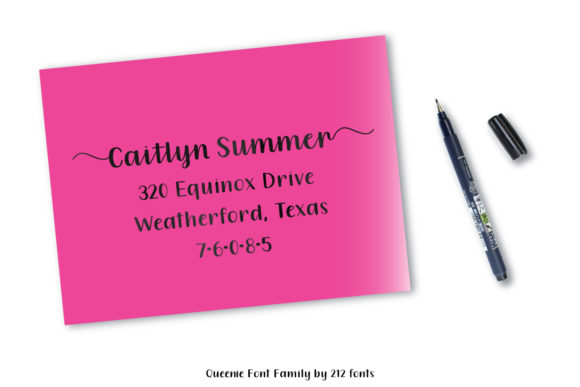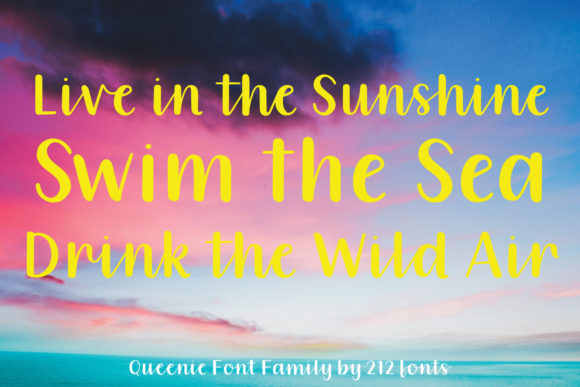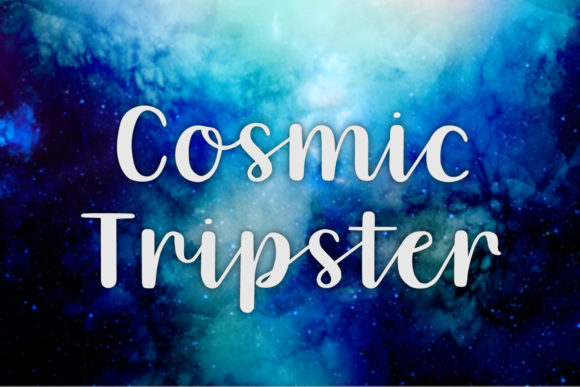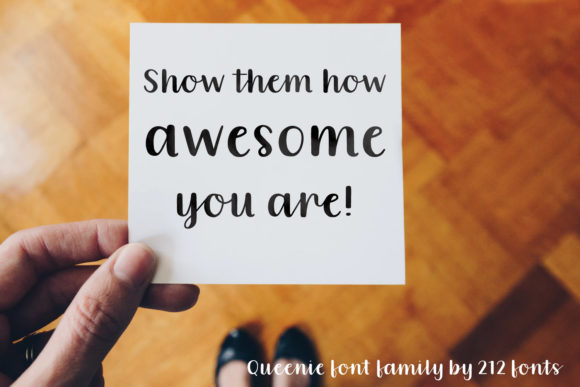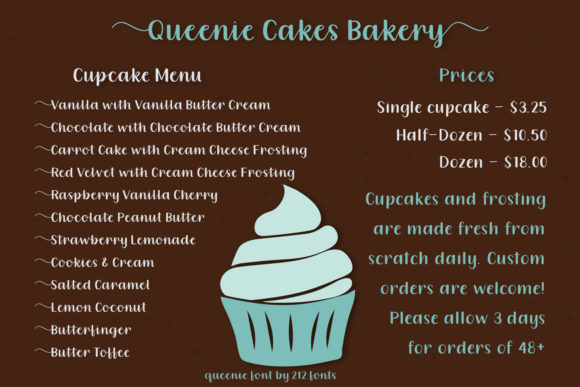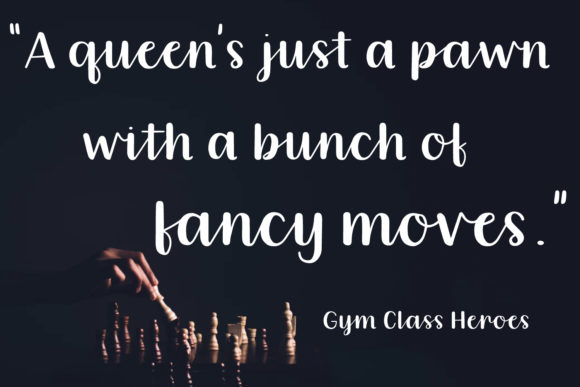
Introduction to Queenie Font
Queenie is a clean, handwritten font that includes a script and sans version and swashes that can be applied to the beginning and ends of all letters.
It will surely elevate any adorable design ideas .